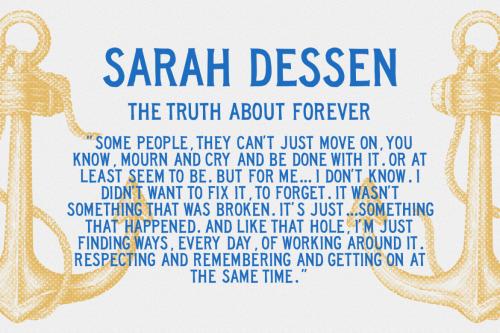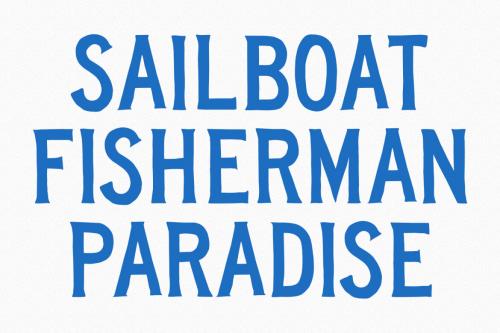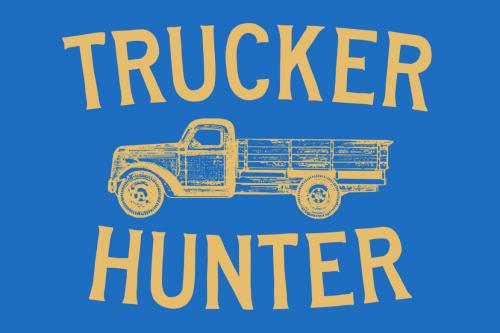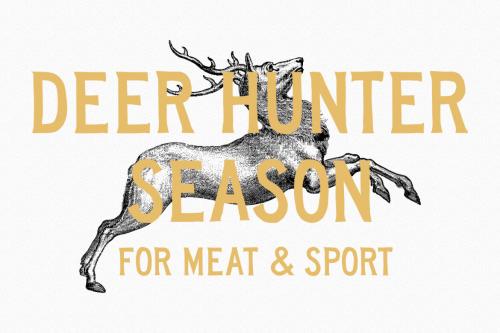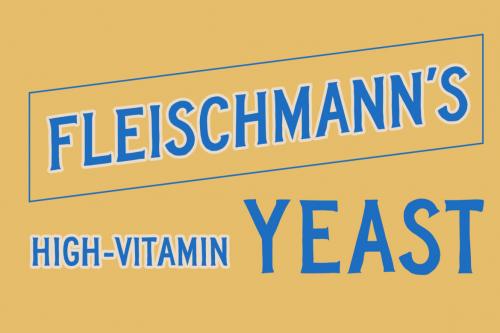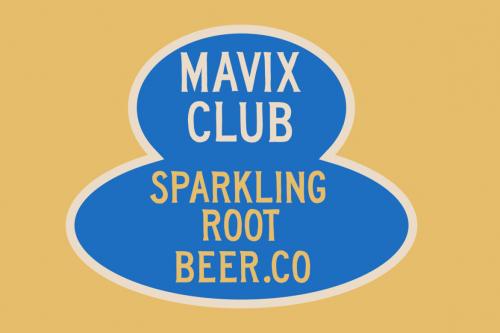
Deeezy - Shellback Decorative Vintage Display Font
Shellback is a hand-feel serif Display font font. Rough Regular stroke, fun character with a bit of ligatures and alternates. To give you an extra creative work. Shellback font support multilingual more than 100+ language. This font is good for logo design, Social media, Movie Titles, Books Titles, a short text even a long text letter and good for your secondary text font with script or serif. Make a stunning work with Shellback font.